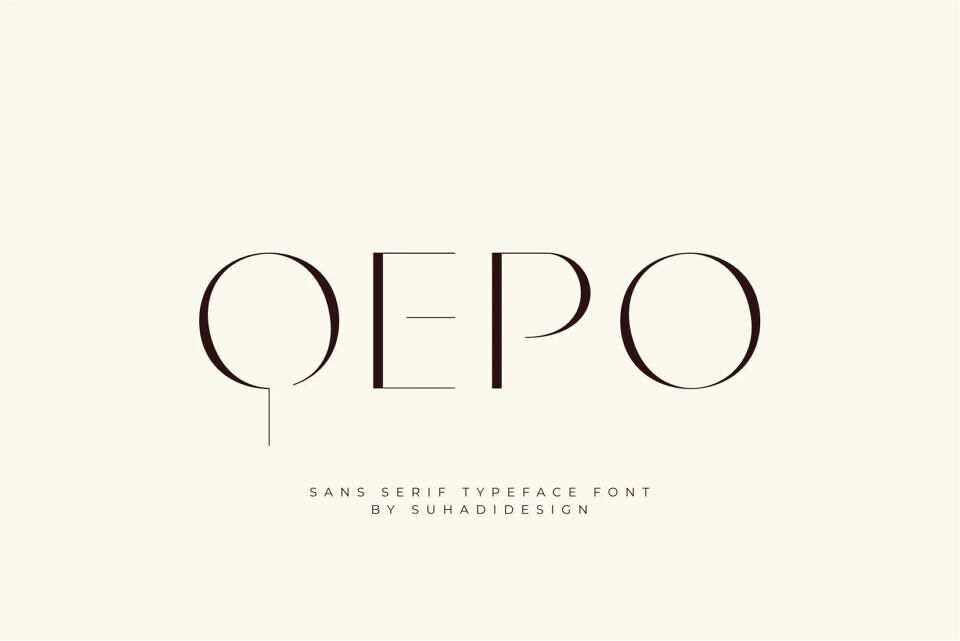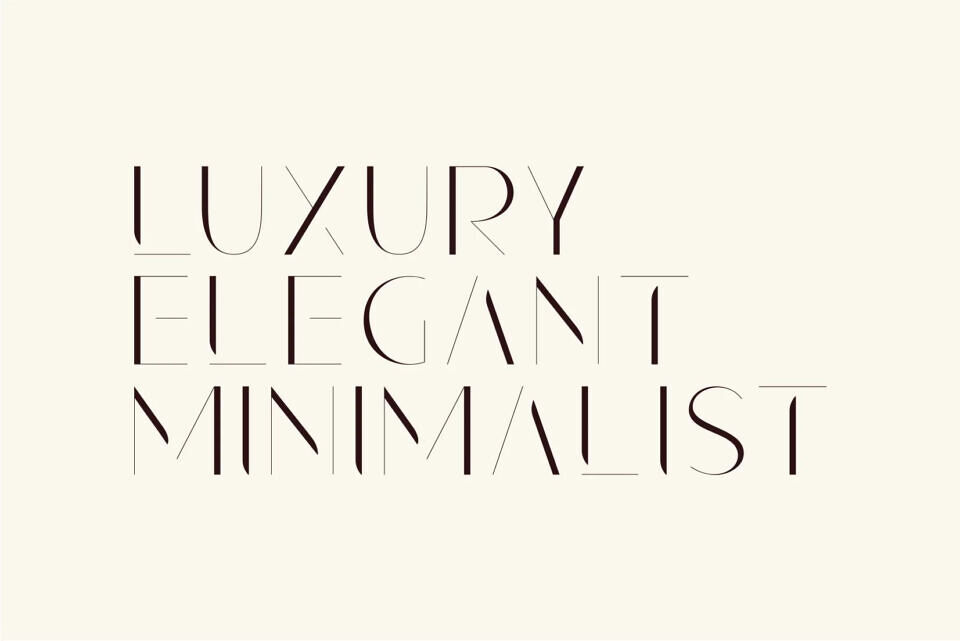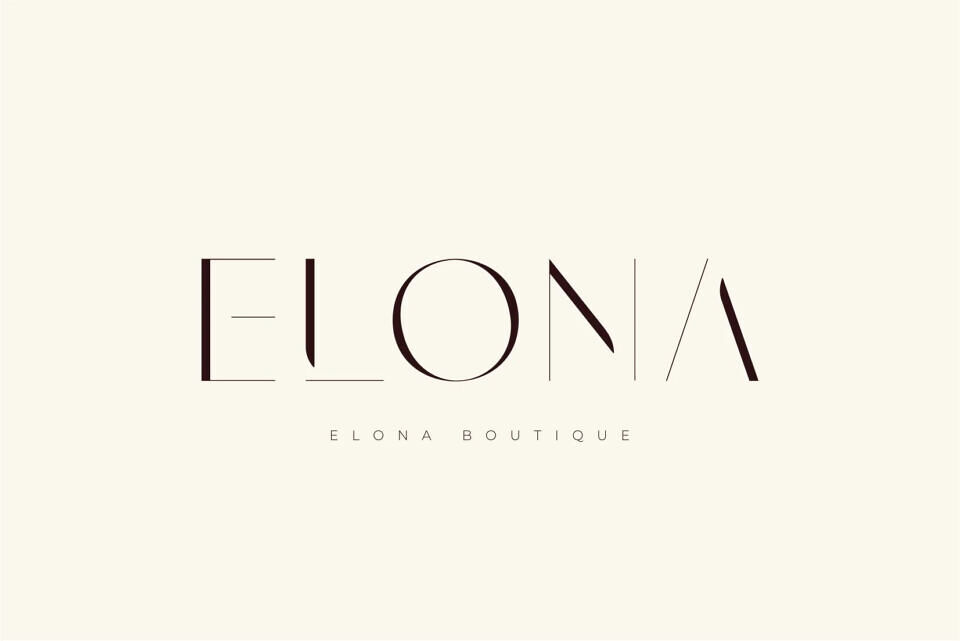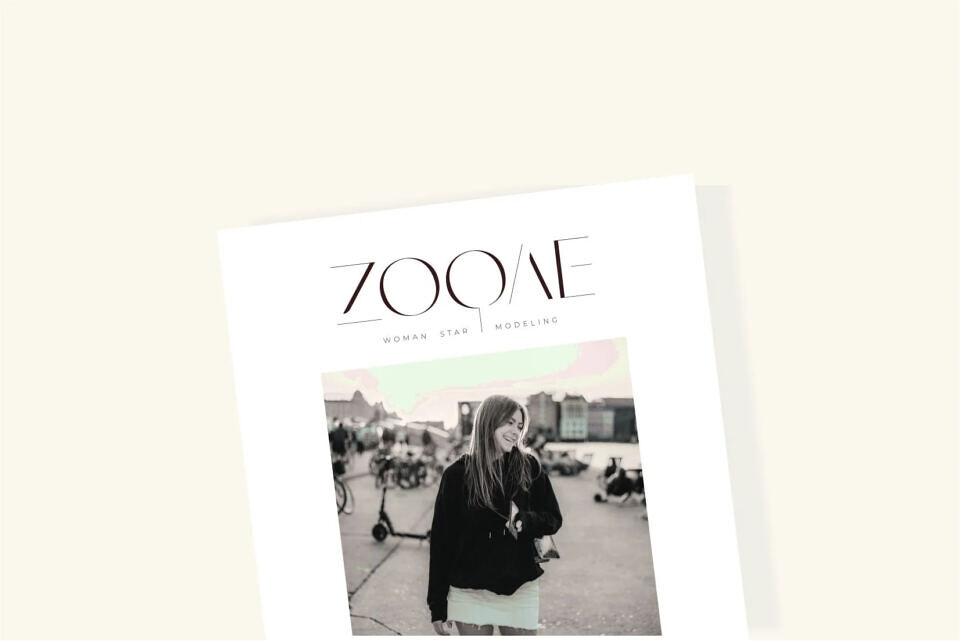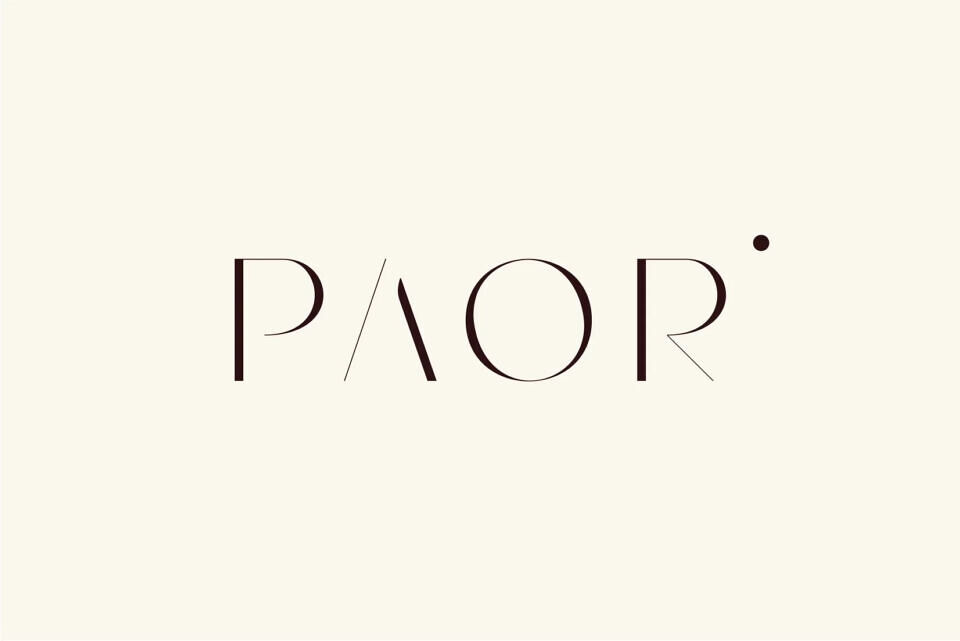
Qepo Font
Qepo is a modern sans serif typeface. With its modern design and contemporary style, this font has become a favorite on the market. We’ve maintained this font’s elegance, class, and style.
Qepo is the perfect choice for magazines, designs, books, publications, branding, brand names, business cards, social media, classy designs, cosmetics, beauty, branding, logos, wordmarks, newspapers, branding, beauty, and other projects. The Qepo font is here to elevate the quality of your designs.